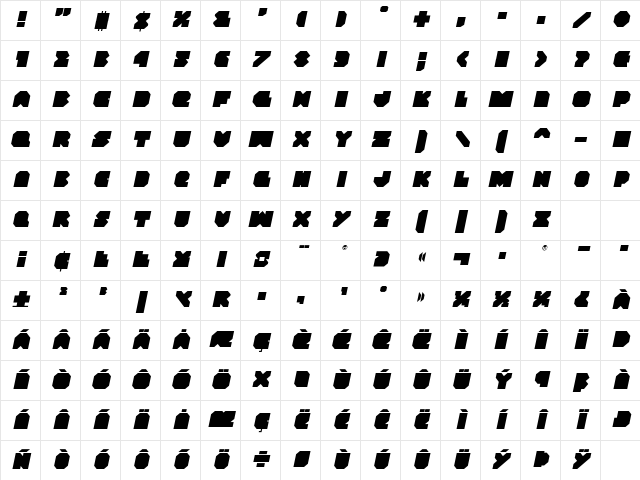
VX Rocket Italic Italic Free Font
VX Rocket Italic Italic
Design Context for VX Rocket Italic
VX Rocket Italic is a composed and adaptable typeface that performs quietly and consistently across a wide range of design contexts. The slanted form adds forward momentum and visual energy.